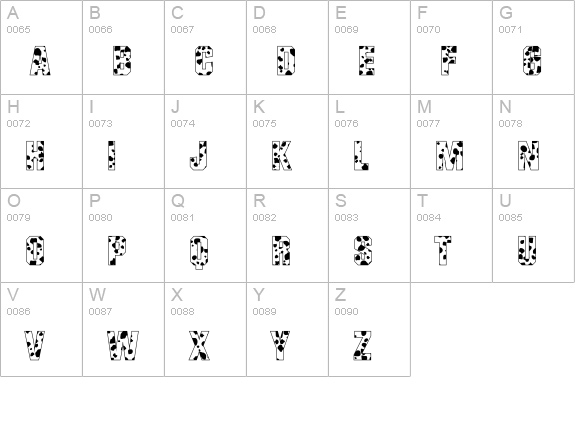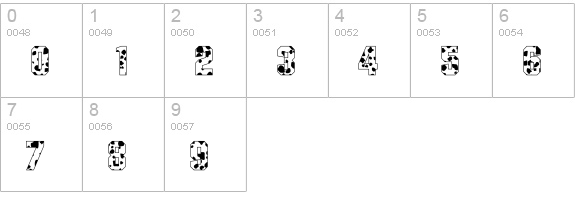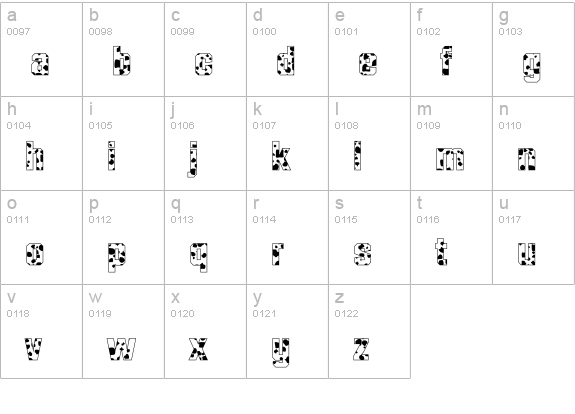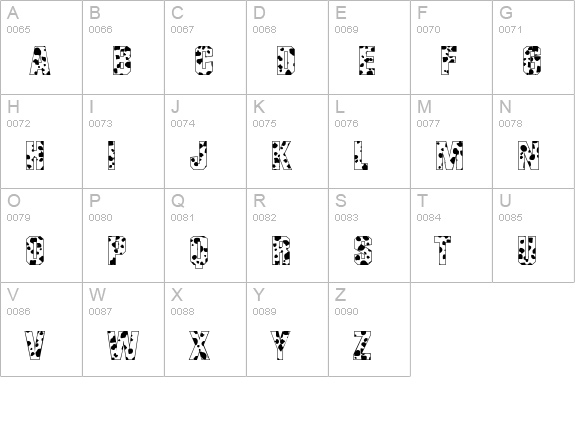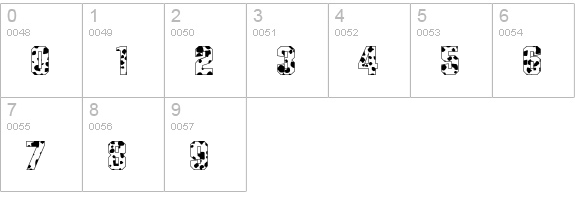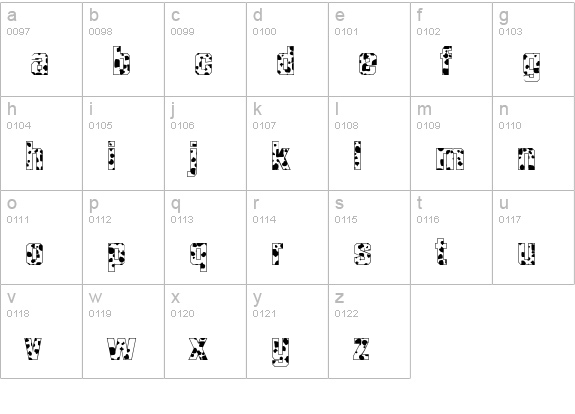
Milk Shed SF Font Details
Milk Shed SF font is a charming and whimsical typeface that exudes a rustic and homely feel. With its hand-drawn appearance and quirky style, this font is perfect for adding a touch of warmth and nostalgia to your designs. The irregular letterforms and uneven lines give Milk Shed SF font a unique and playful look that is sure to stand out. Best of all, Milk Shed SF font is available for free download at FontsMarket.com. This means you can easily access this delightful font and start using it in your projects without any cost. Whether you're working on a branding project, a greeting card design, or a personal project, Milk Shed SF font is a versatile choice that will add a touch of personality and charm to your work. Download it today and let your creativity flow with this delightful and free-to-use font.